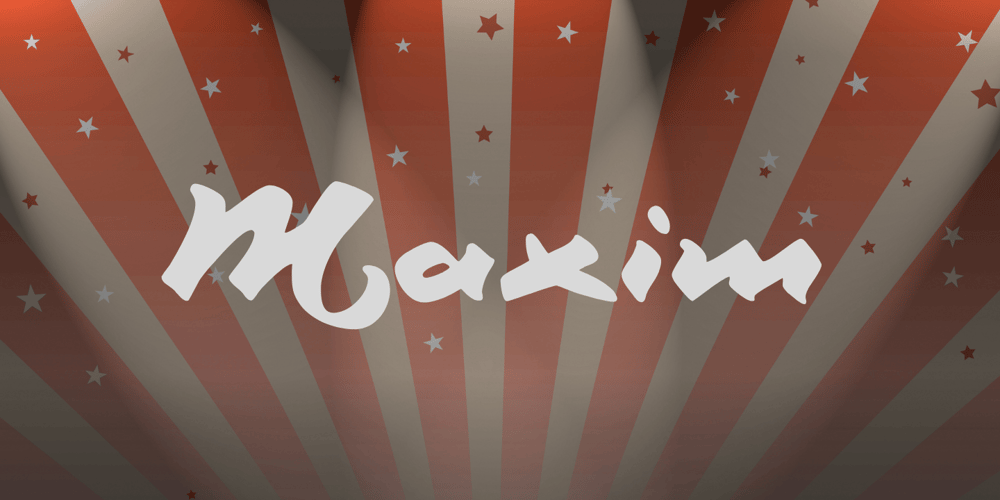
Maxim Font Family was designed by Peter Schneidler and published by GroupType. Maxim contains 1 styles and family package options. Maxim was originally designed by Peter Schneidler in 1956 for the Bauer Type Foundry. This typeface is energetic and has the look and feel of a brush painted script. The FontHaus font studio released its revival version with added characters in 1994 and as an OpenType font in 2006.